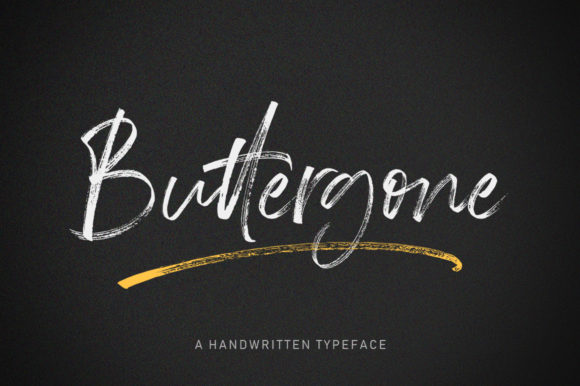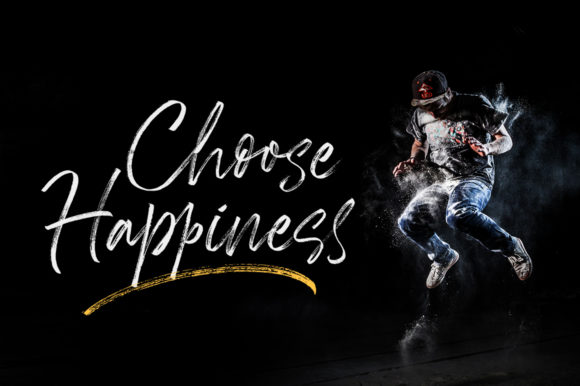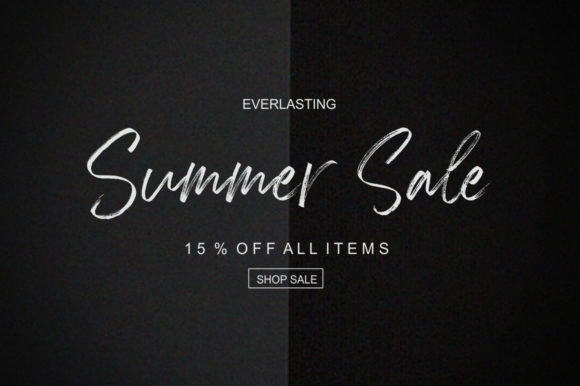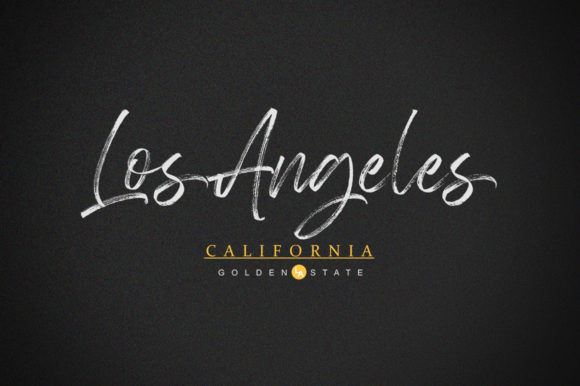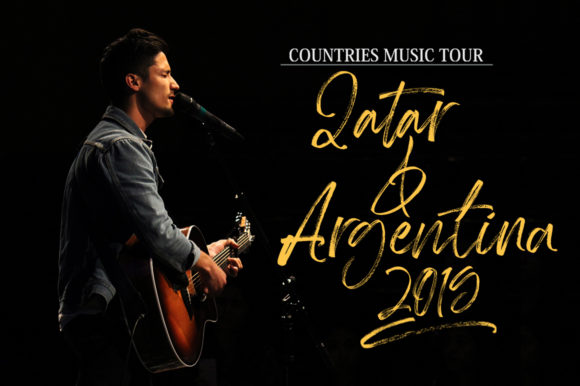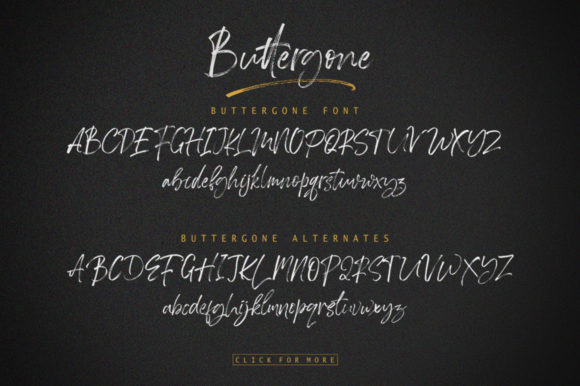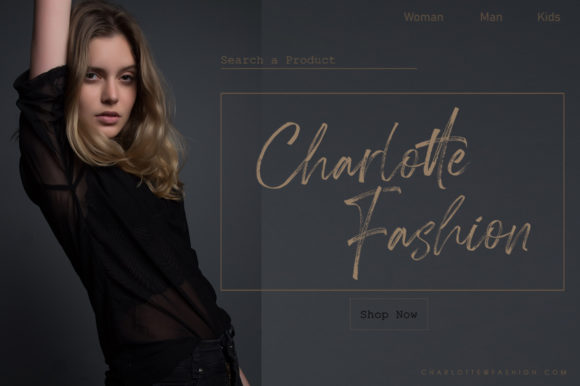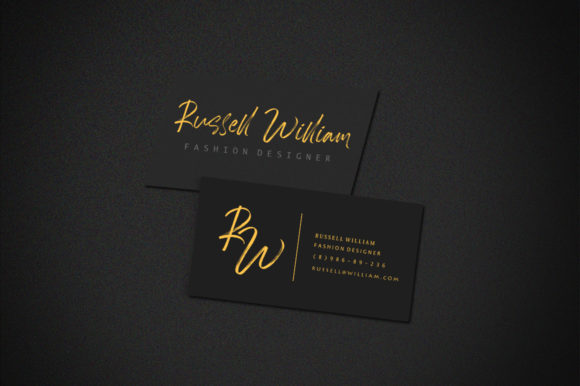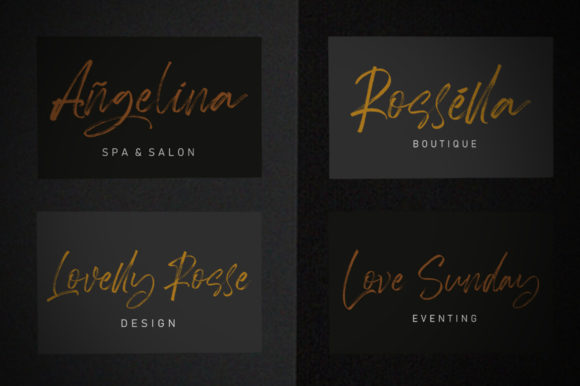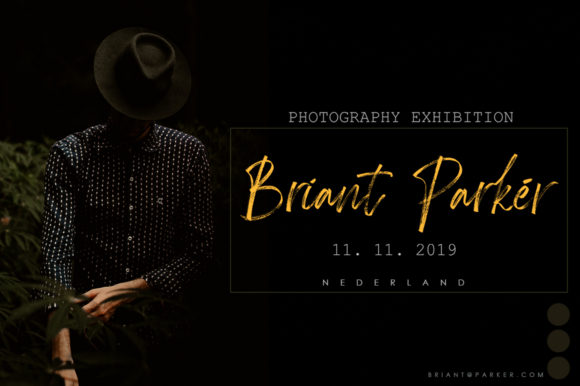
Buttergone Font
About Buttergone Font
Buttergone is a cool and serious brush font with an irregular baseline. With its contemporary approach to design, it will turn any design idea into a true standout!